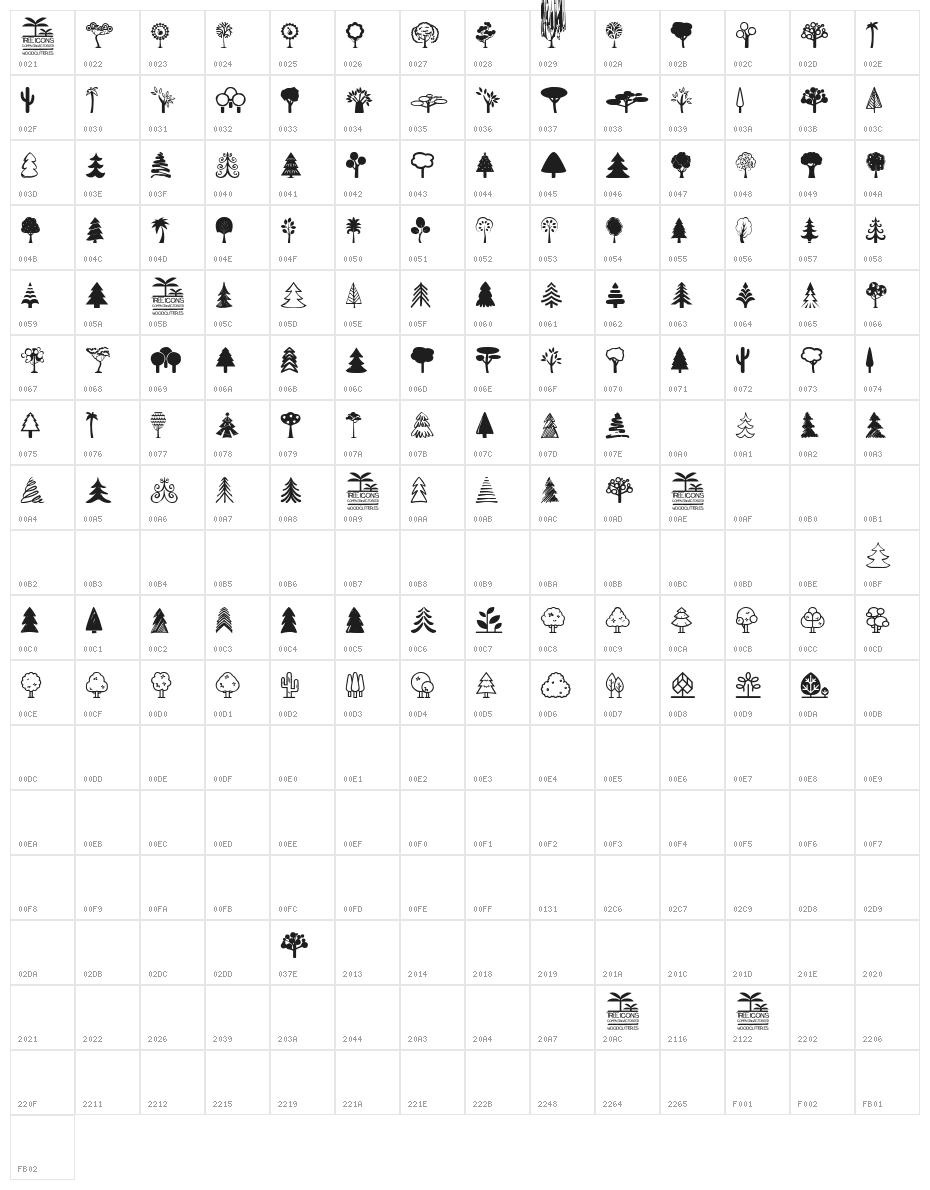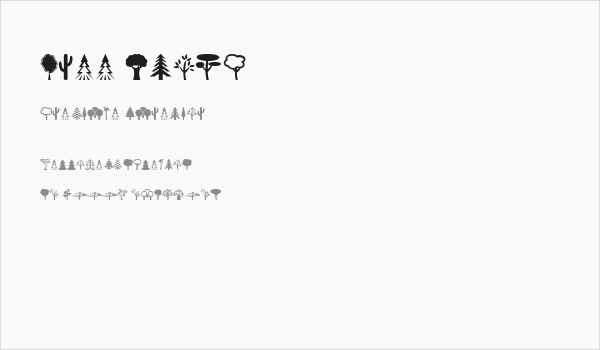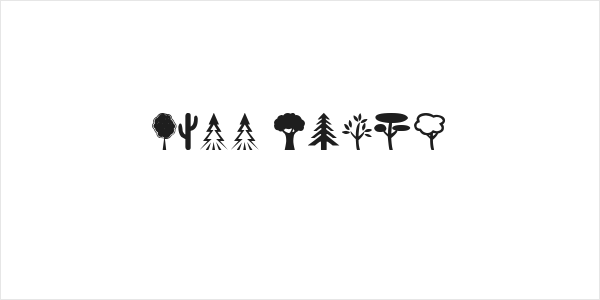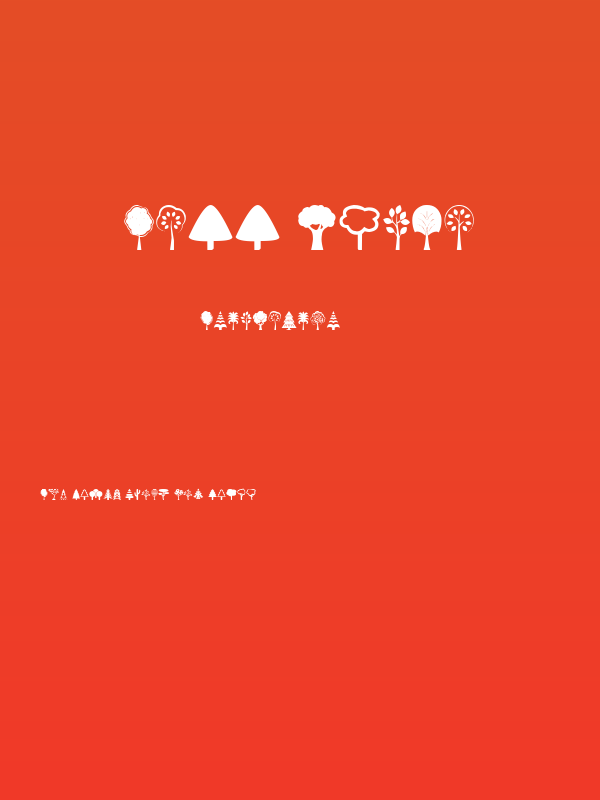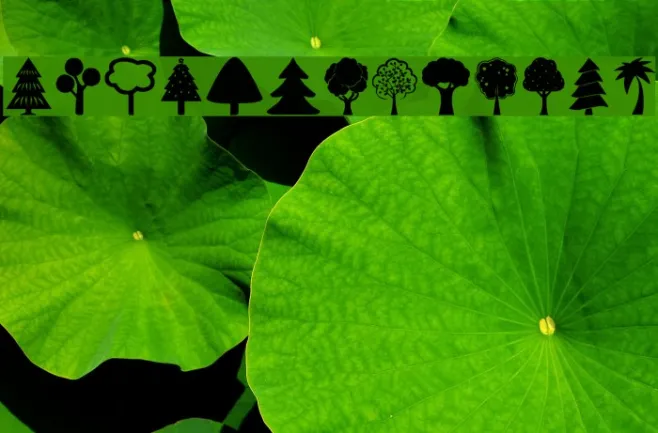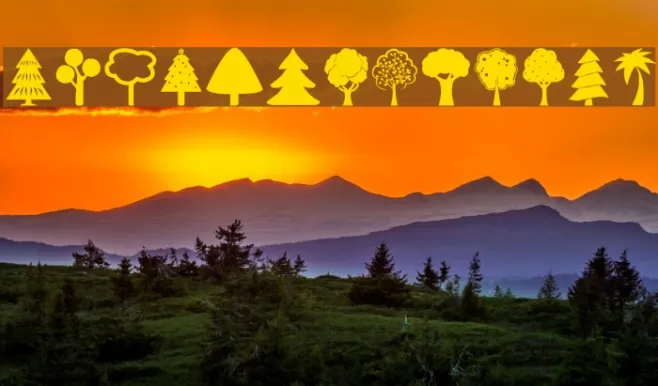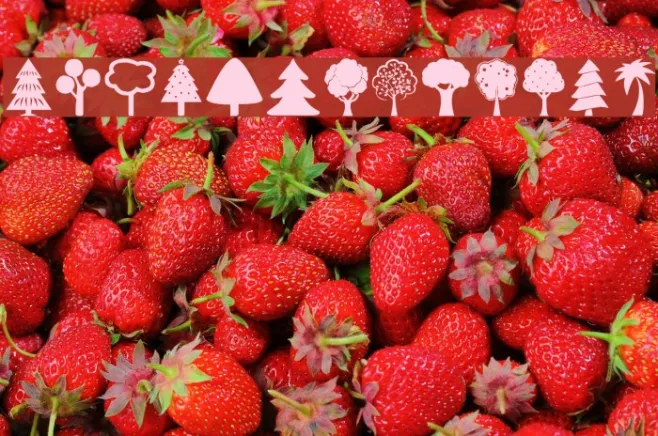
Tree Icons Font
Tree Icons Description
A diverse collection of tree and plant icons in solid black silhouettes, featuring a wide range of stylized and abstract forms, including conifers, palms, deciduous trees, and whimsical shapes. The icons vary in complexity from simple geometric forms to more detailed outlines, all unified by a bold, high-contrast appearance.
| Overall Style | Decorative, Playful, Modern |
| Use Case | Icons, Logos, Decorative elements, Infographics |
| Proposed Projects | Nature-themed infographics, environmental branding, educational materials, eco-friendly product packaging, app icons, website graphics. |